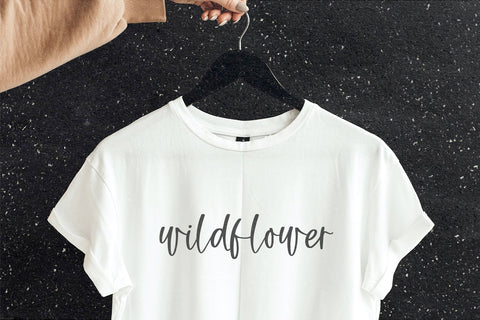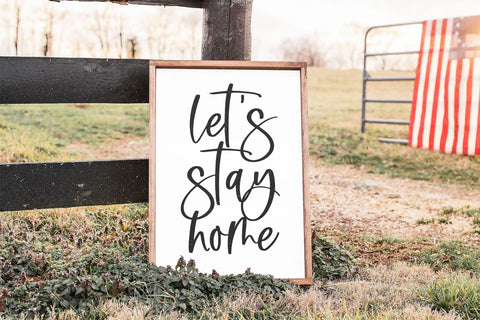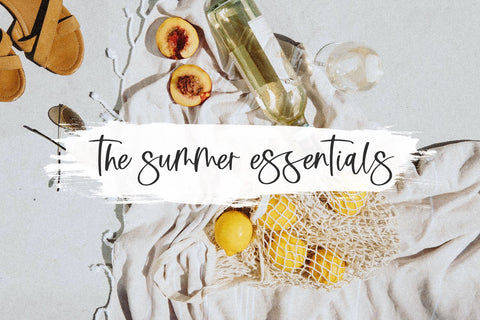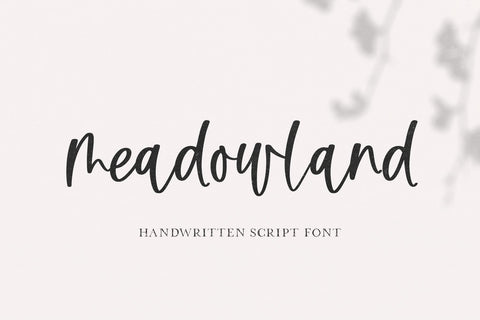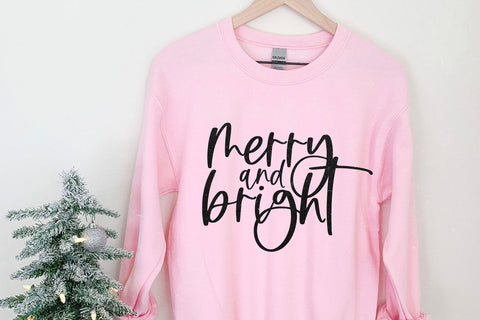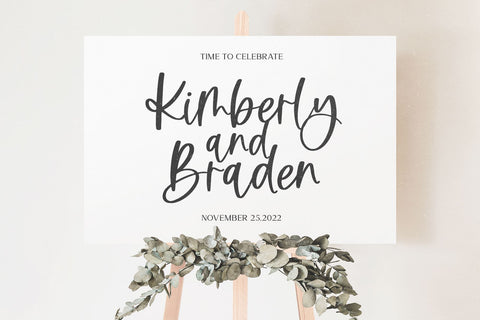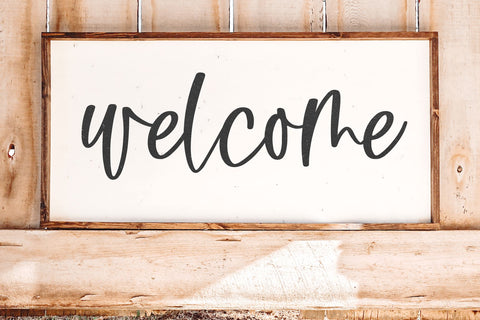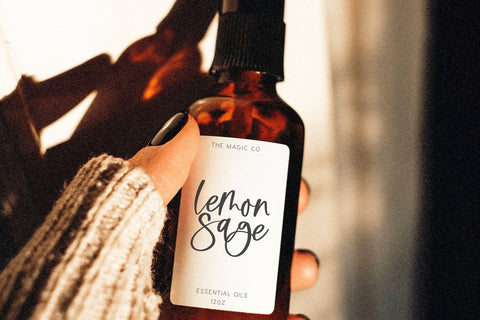
Meadowland - Handwritten Script Font
Meadowland is a handwritten script font - perfect for your farmhouse designs!
This font is perfect for svg designs, shirts, crafts, farmhouse decor, procreate, cricut projects, branding, blogs, logos, invitations and more!
Most accent characters included.